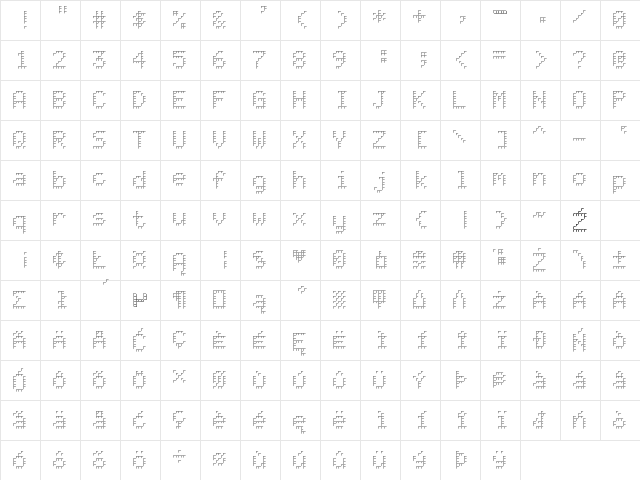
EFN Mobile Albinos Regular
| Designer | Grzegorz Klimczewski |
Design Context for EFN Mobile Albinos Typeface
EFN Mobile Albinos is a composed and adaptable typeface that performs quietly and consistently across a wide range of design contexts.